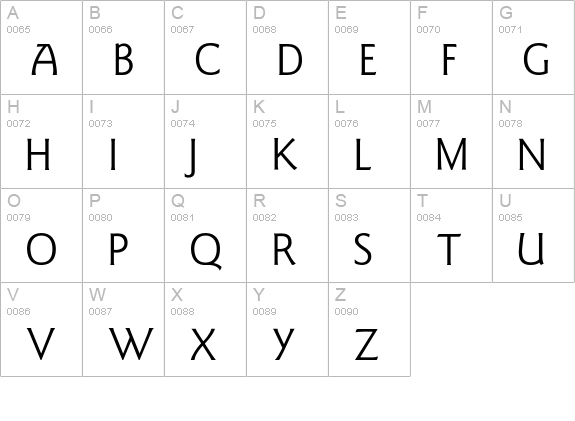
GoudySansBook Font Details
GoudySansBook is a timeless and elegant sans-serif font that exudes sophistication and versatility. With its clean lines and balanced proportions, this font is perfect for a wide range of design projects, from branding to editorial design. The GoudySansBook font strikes the perfect balance between modernity and classic design, making it a great choice for both digital and print applications. What sets GoudySansBook apart is not only its aesthetic appeal but also its accessibility. This stunning font is available for free download at FontsMarket.com, allowing designers and creatives to easily incorporate it into their work without any cost. Whether you're working on a website, brochure, or any other design project, GoudySansBook is sure to elevate your typography and make a lasting impression. Download this exquisite font today and add a touch of sophistication to your designs.